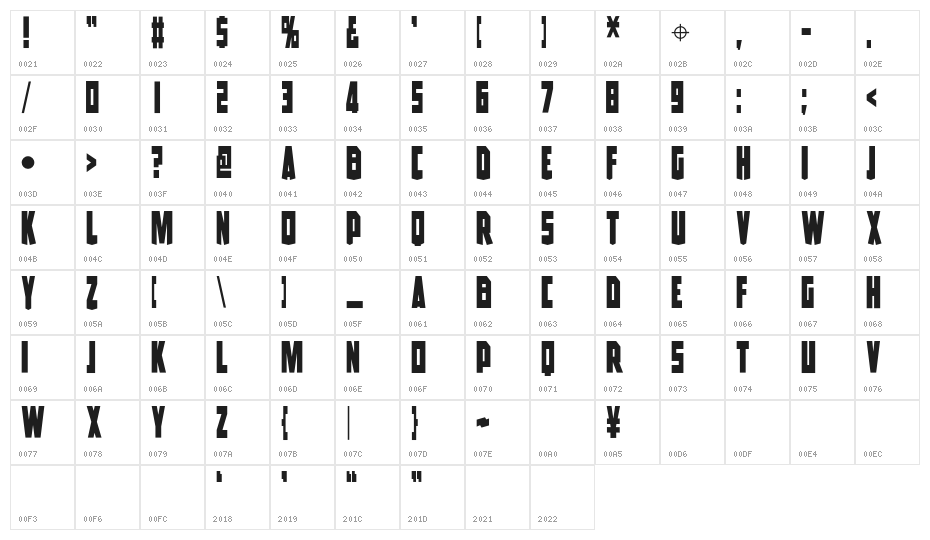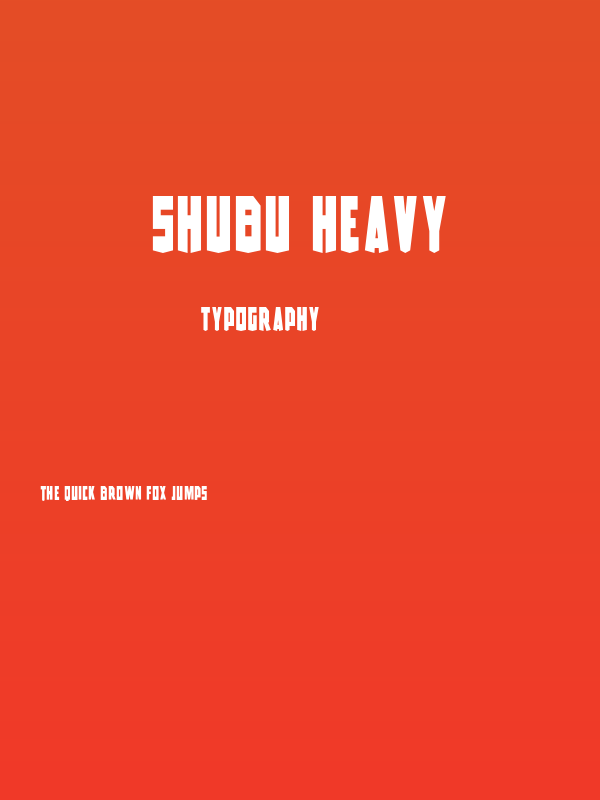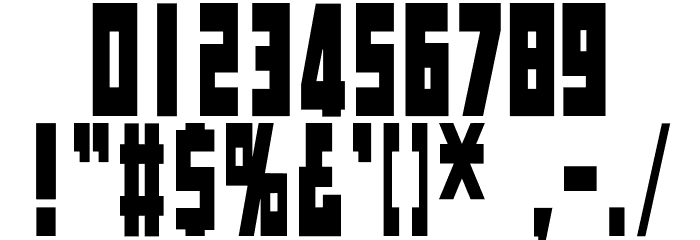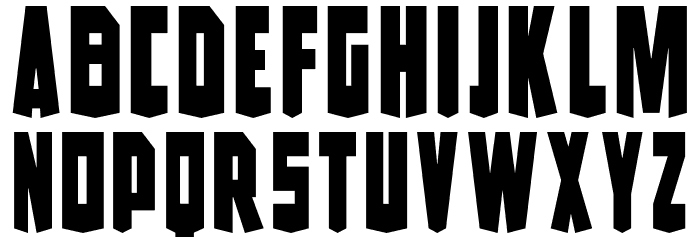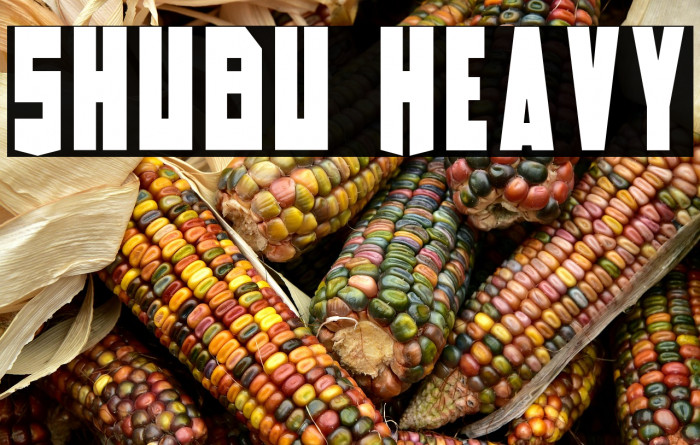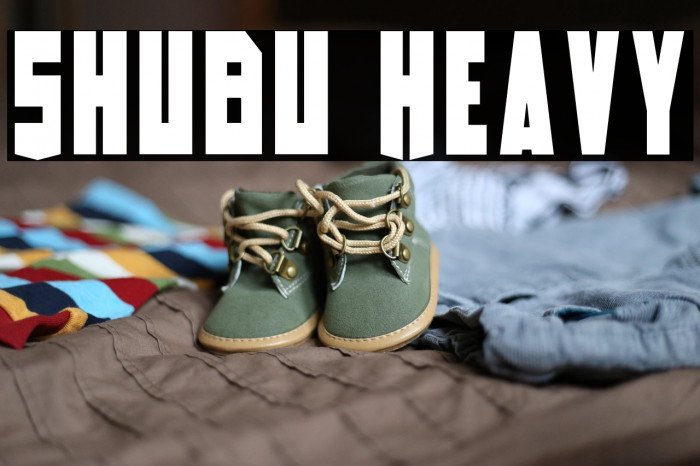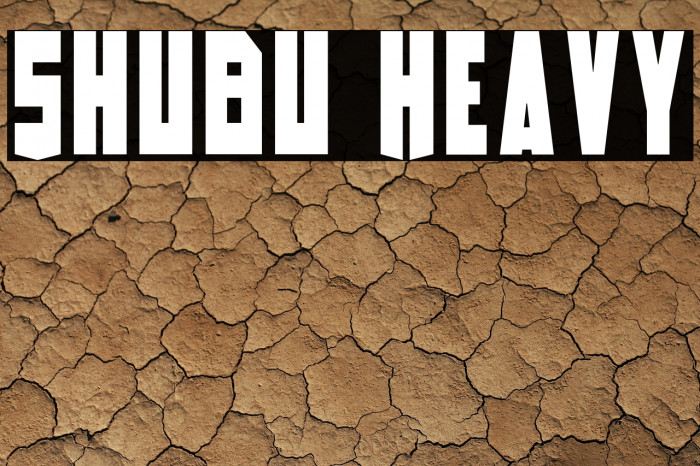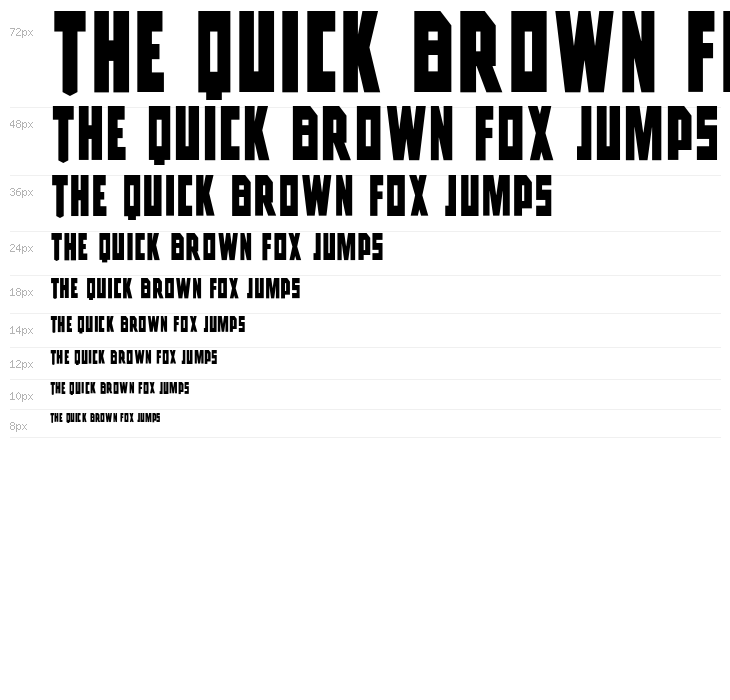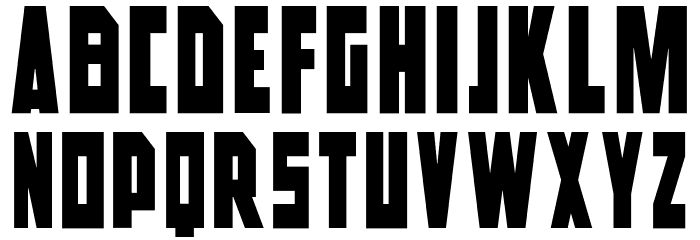
Shubu Heavy Font
Shubu Heavy Description
This font exhibits a bold and impactful design, characterized by its thick, blocky letters with sharp angles and a strong geometric presence. The uppercase and lowercase letters maintain a consistent weight, contributing to a uniform and cohesive appearance. The numbers and special characters follow the same robust style, ensuring a seamless integration across different text elements. The font's design is reminiscent of industrial or urban aesthetics, making it suitable for projects that require a strong visual statement. Its boldness and clarity make it ideal for headlines, posters, and branding materials where attention-grabbing text is essential.
| Proposed Projects | Ideal for use in posters, headlines, branding, and any project requiring a bold visual impact. |